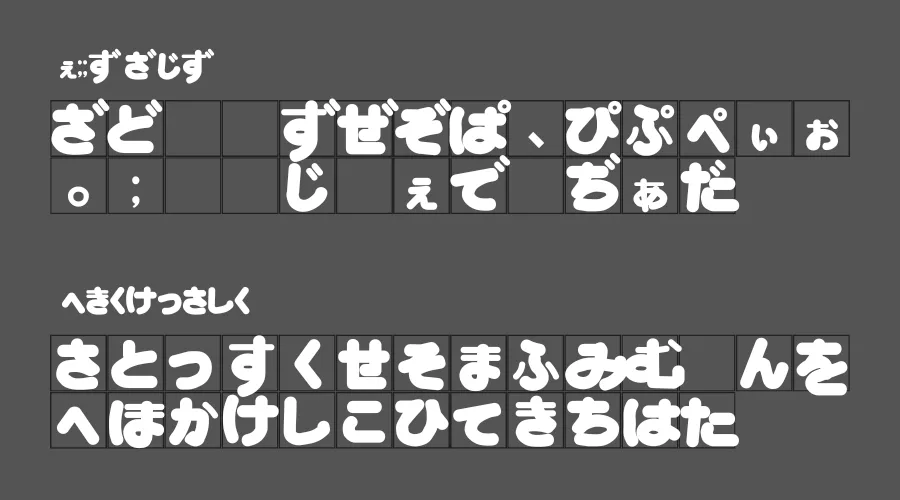
About Mottley Horney Hiragana Font
Introducing to you a new famous Sans-Serif typeface with straight lines and a unique type of texture. The Mottley Horney Hiragana Font was developed by an Igor C. Barros Corporation and belongs to the category of the techno texture family. You may get it free from here for all your fun methods.
This font gained popularity in a very short time after it was published in the font work. because it has a good-looking and eye-catching texture look appearance for visitors. This font supports multiple types of international languages such as Greek, English, Latin, and many more.